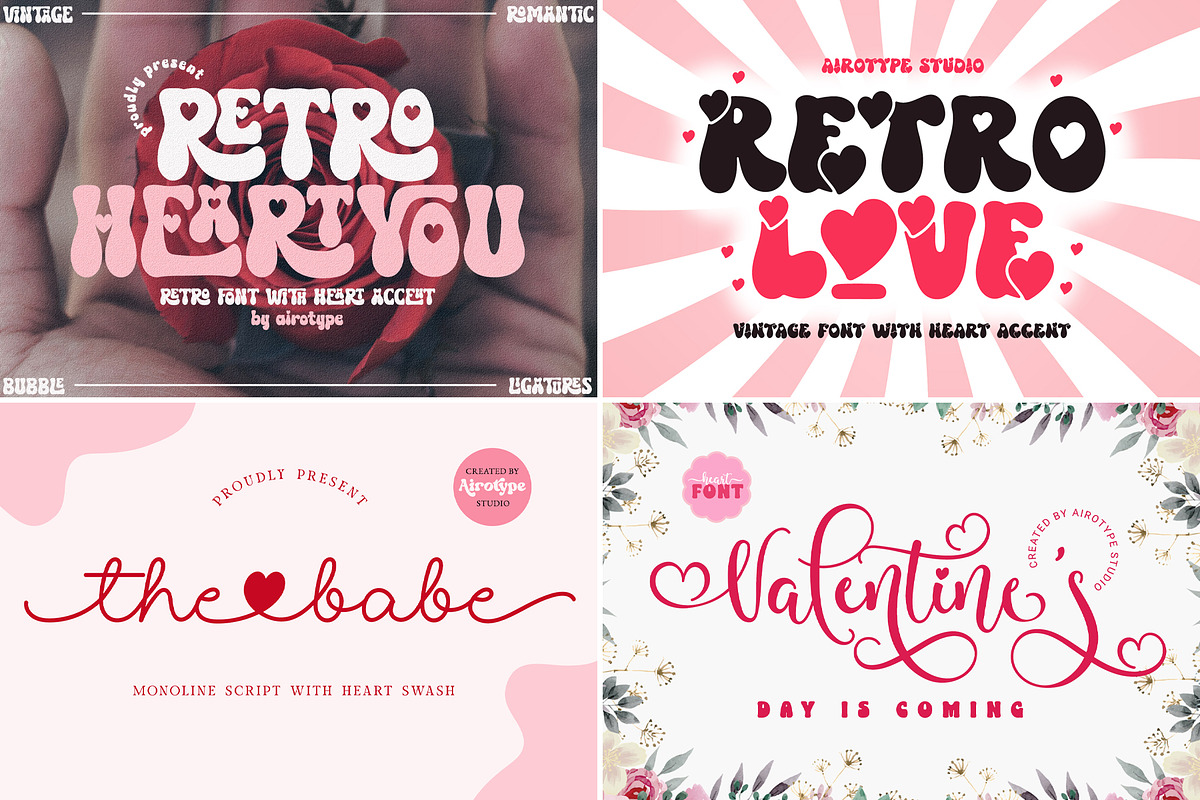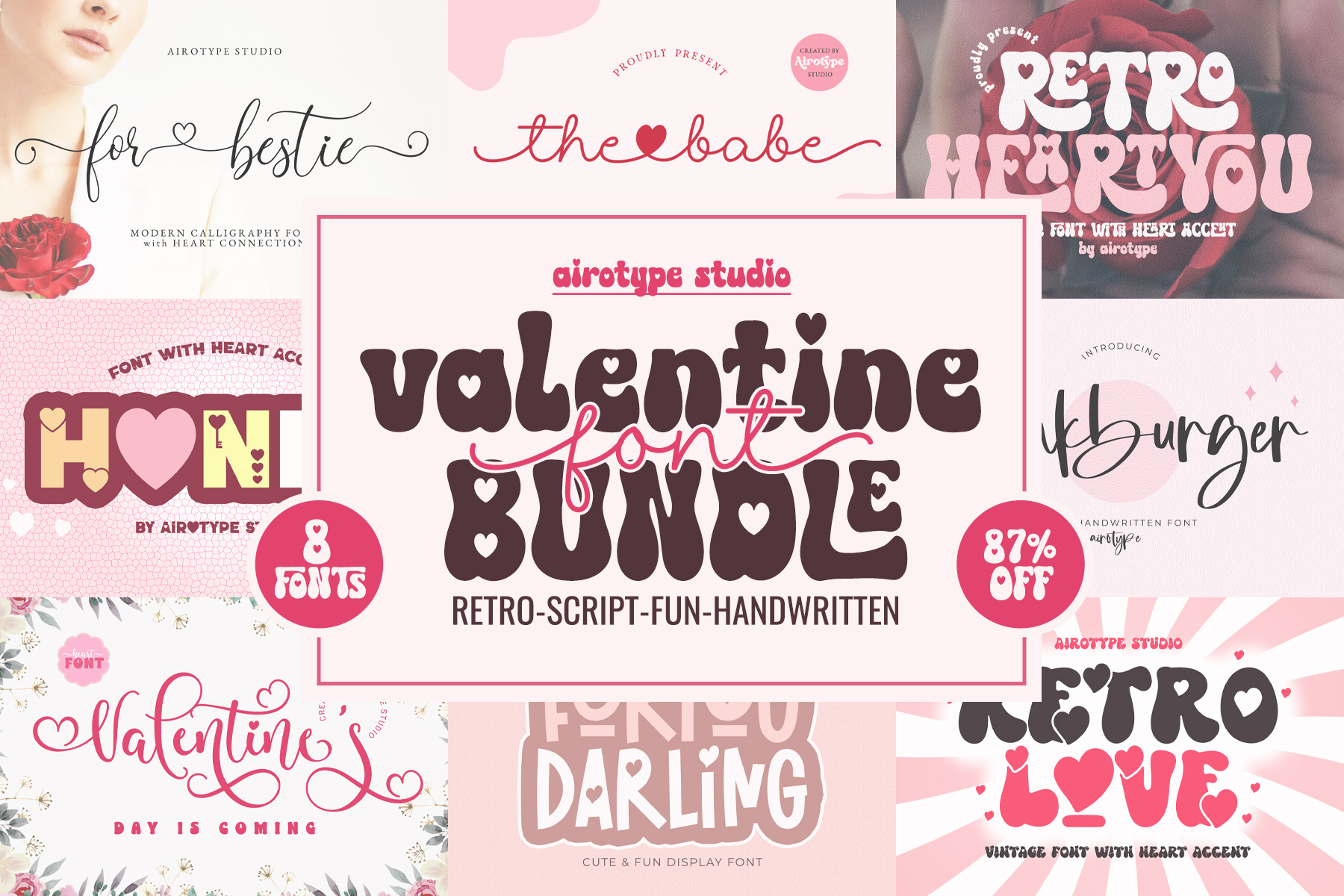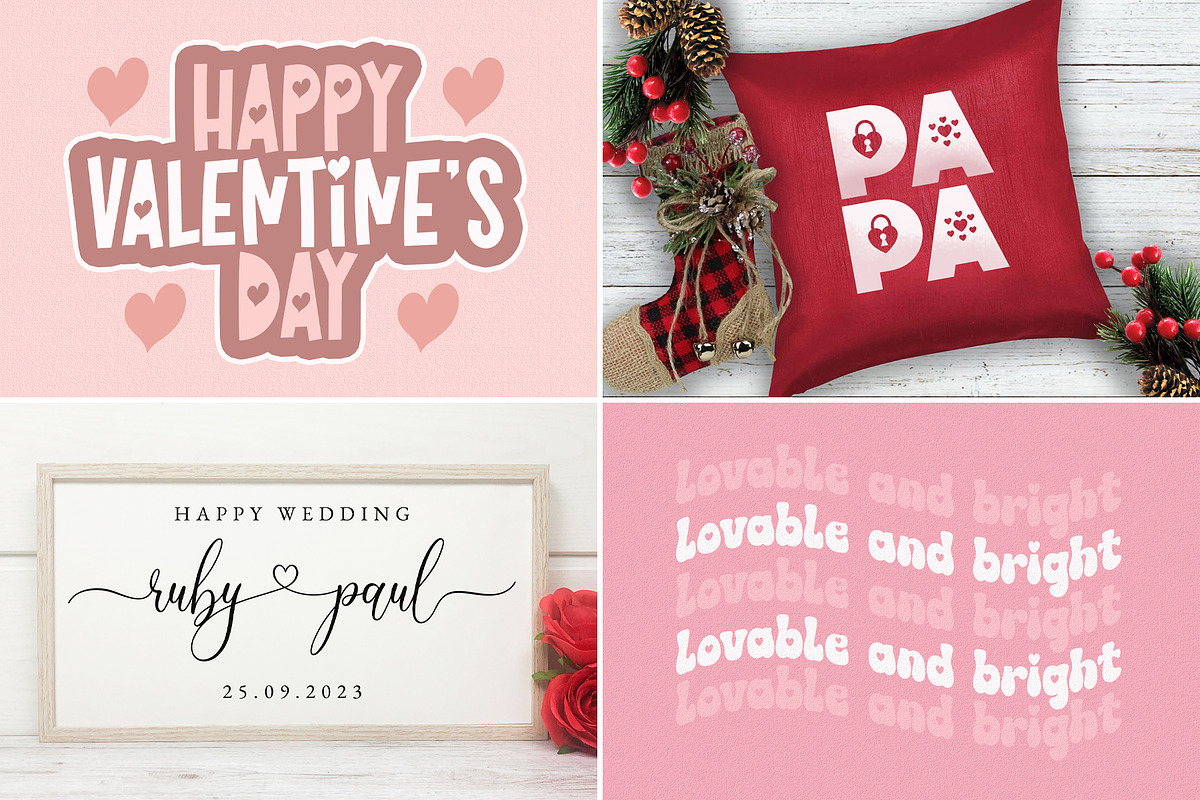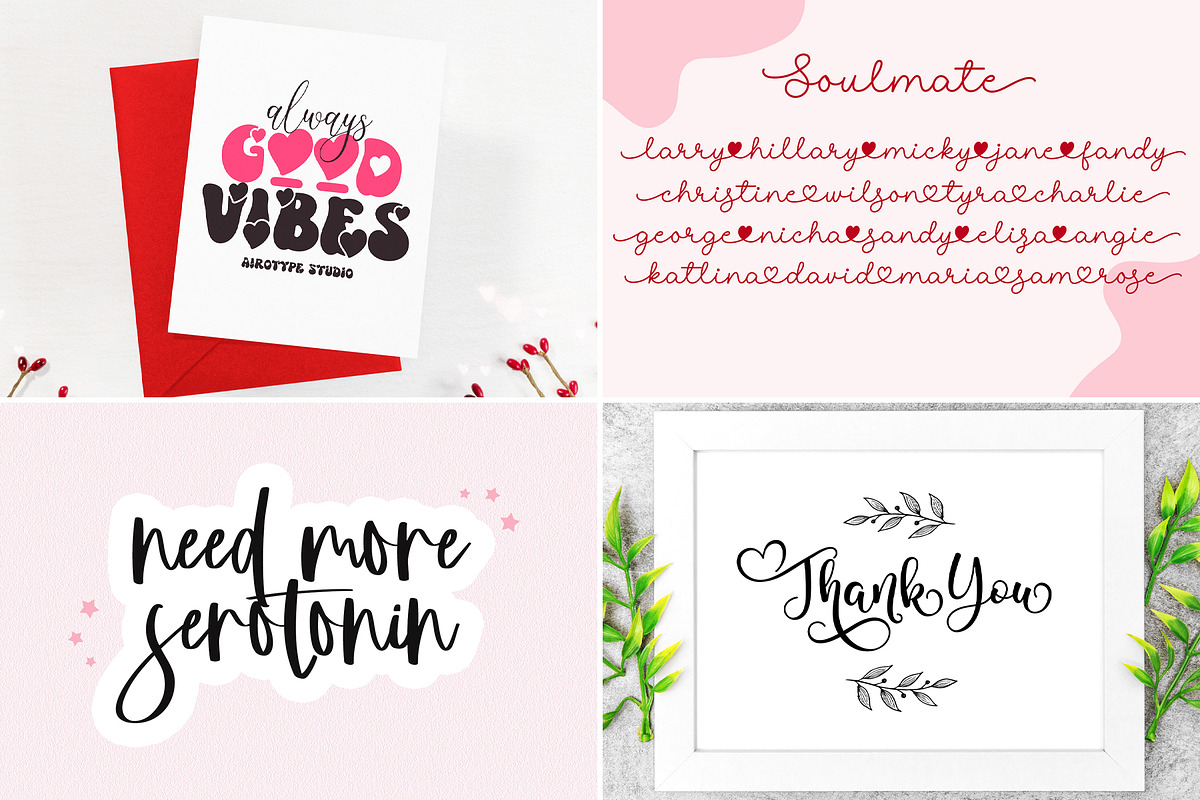
Heart Font Bundle | 8 Love Fonts
Heart Font Bundle is the collection of font with heart accent from Airotype. It includes some types of font, from script, handwritten, display, and vintage retro font. It is special font bundle for special love moment, such as valentine's day, wedding, thanksgiving, and others.
8 Fonts included in this bundle are:
- For Bestie (chic script font with heart connection swash)
- Pink Burger (bouncy script)
- Honey (bold display font)
- Retro Love (bubble font with heart accent)
- The Babe (monoline font with heart swash)
- For You Darling (cute display font)
- Retro Heart You (heart retro font with ligatures)
- Valentines (bouncy calligraphy font)
Each font in the bundle is suitable and perfect for any kind of your project, such as crafting, invitation, branding, graphic design, quotes, wedding design, tshirt design, sublimation, invitation, photography, and many others.